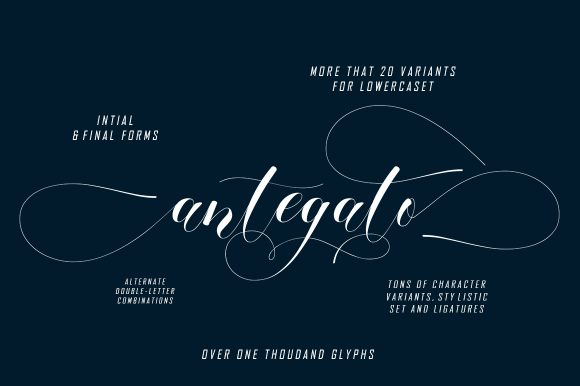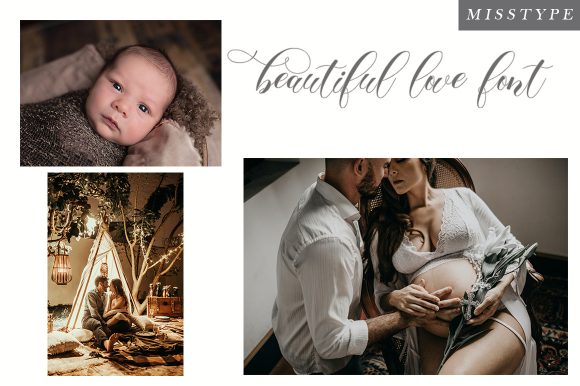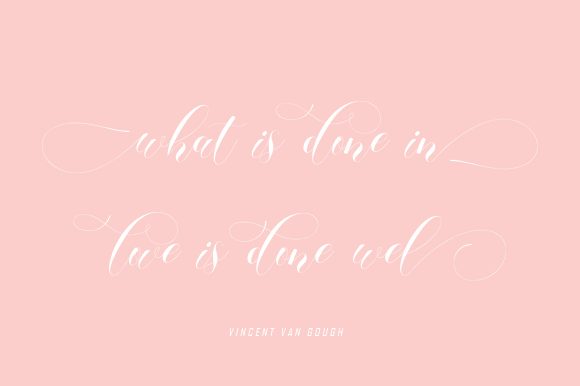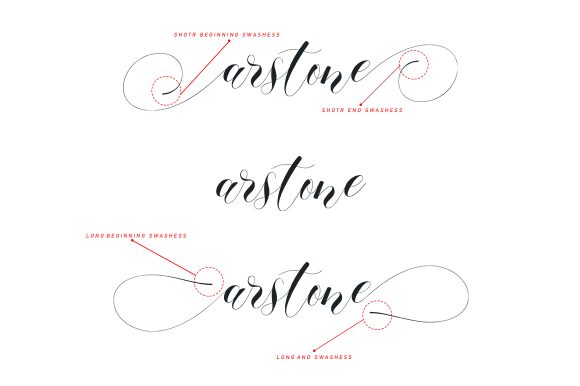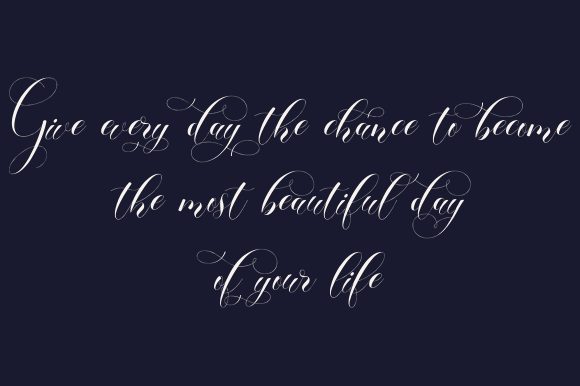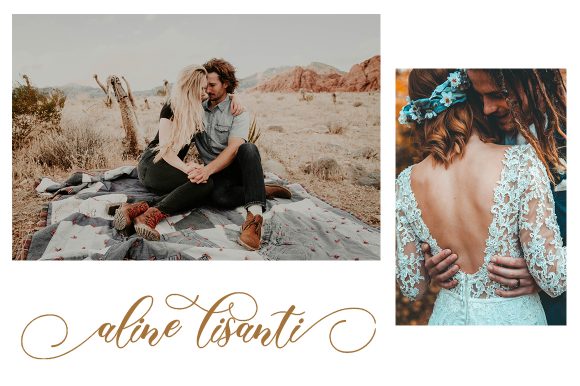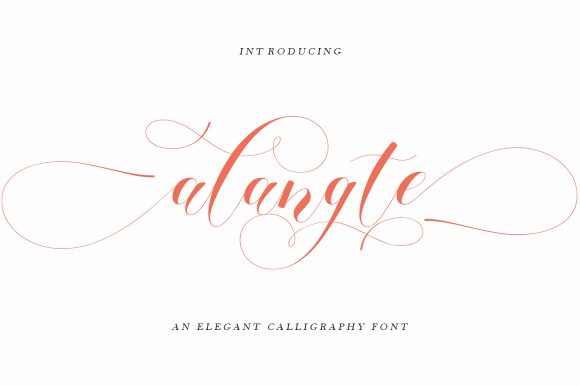
Introducing Alangte Font: A Modern Script Font for Creative Minds
Are you a designer, crafty person, or someone who appreciates beautiful typography? Look no further than Alangte Font, a stunning script font that embodies modern elegance. With its unique features and versatility, Alangte Font is perfect for a wide range of creative projects, from branding and advertising to crafting and DIY endeavors.
What Makes Alangte Font Stand Out?
Alangte Font is designed with an incredibly modern feel, making it an excellent choice for those who want to add a touch of sophistication to their work. This beautiful script font boasts a varying baseline, smooth lines, gorgeous glyphs, and stunning alternates. The result is a font that exudes elegance and refinement, perfect for creating visually appealing text.
Key Features of Alangte Font
- Varying Baseline: Alangte Font features a unique varying baseline that adds a touch of organic feel to your text. This feature creates a natural, hand-written look that’s perfect for designs that require a personal touch.
- Smooth Lines: The font’s smooth lines ensure that your text looks sleek and polished, making it ideal for high-end designs and branding projects.
- Gorgeous Glyphs: Alangte Font comes with a wide range of gorgeous glyphs that can be used to add visual interest to your text. From intricate swashes to beautiful ornaments, these glyphs will take your designs to the next level.
- Stunning Alternates: The font also features stunning alternates that allow you to experiment with different styles and variations. This feature is perfect for designers who want to create unique and eye-catching text.
Alangte Font is an excellent choice for designers, crafters, and anyone who loves working with typography. Whether you’re creating branding materials, crafting digital content, or designing print materials, this font is sure to impress. Its versatility and elegance make it perfect for a wide range of projects, from:
- Branding and advertising
- Digital marketing materials
- Print materials (business cards, brochures, etc.)
Tips for Using Alangte Font
To get the most out of Alangte Font, here are a few tips:
- Experiment with different sizes: Alangte Font looks great in a variety of sizes, from large headings to smaller body text. Experiment with different sizes to find the perfect fit for your project.
- Play with glyphs and swashes: Don’t be afraid to get creative with the font’s glyphs and swashes. These elements can add a lot of visual interest to your text and help you create unique designs.
- Pair with other fonts: Alangte Font pairs well with a variety of other fonts. Experiment with different combinations to find the perfect match for your project.